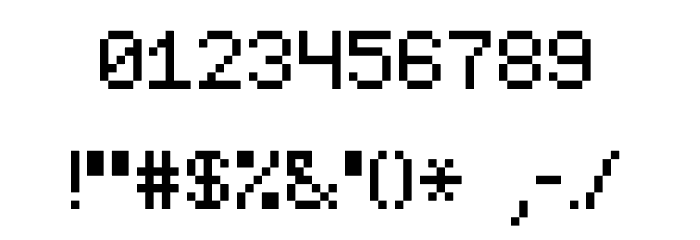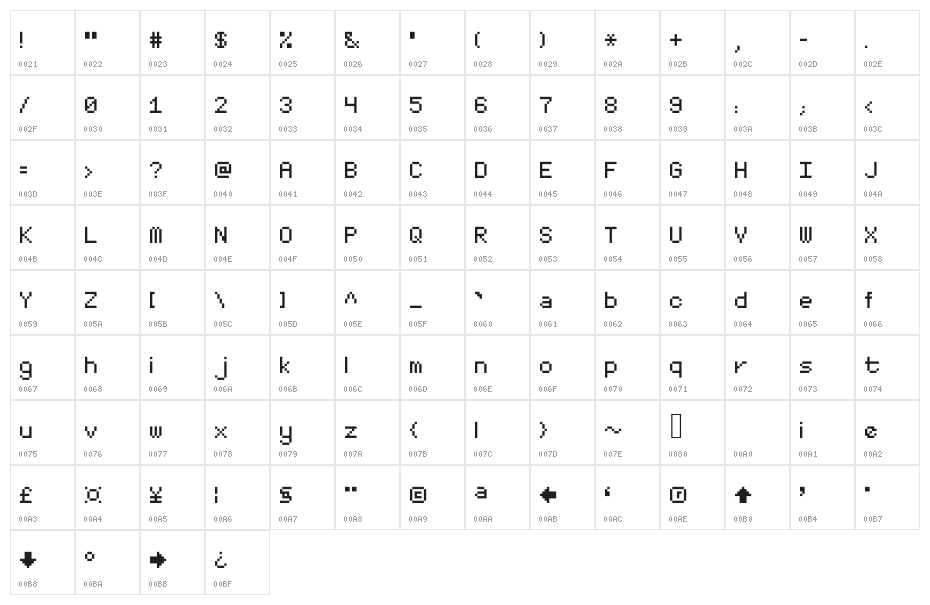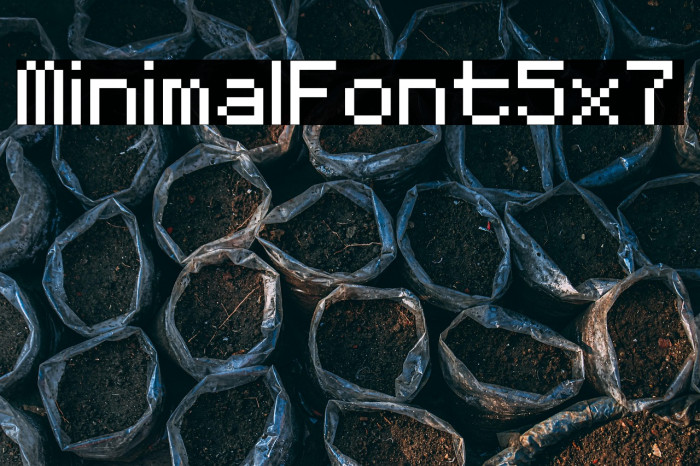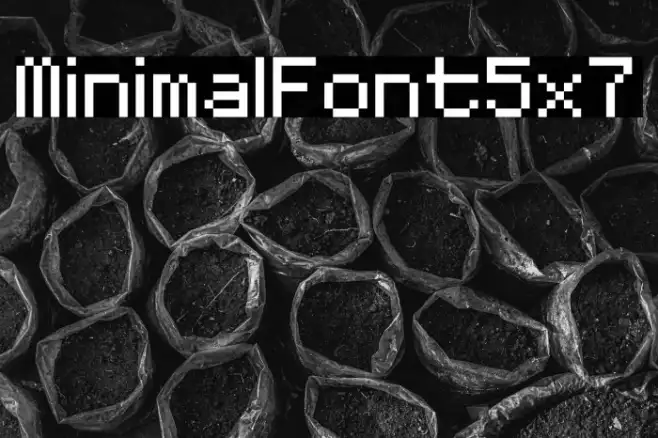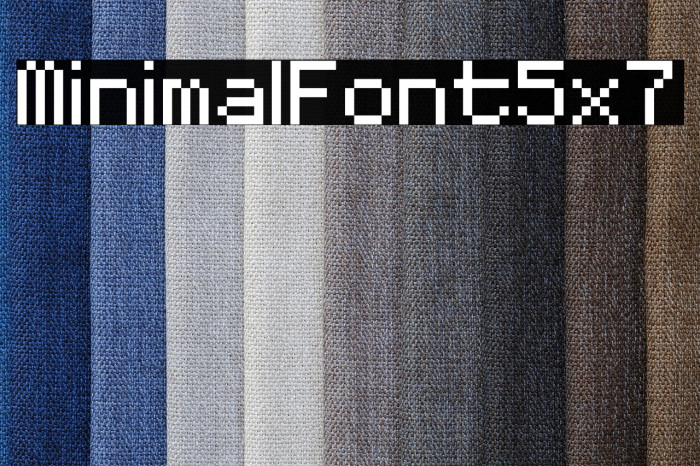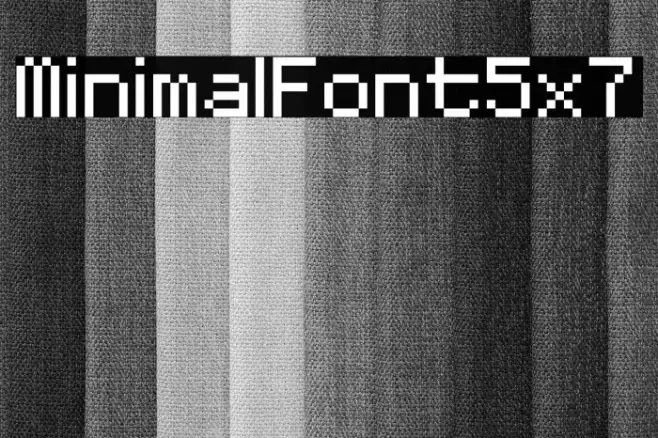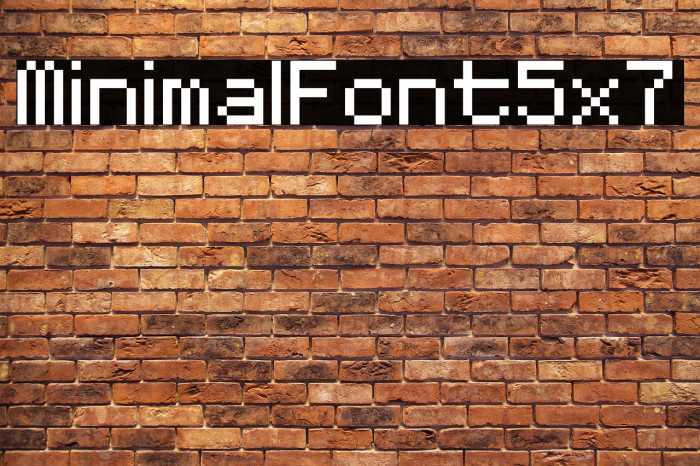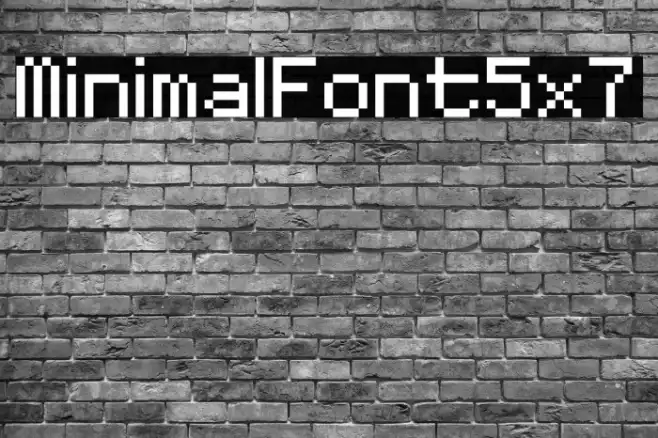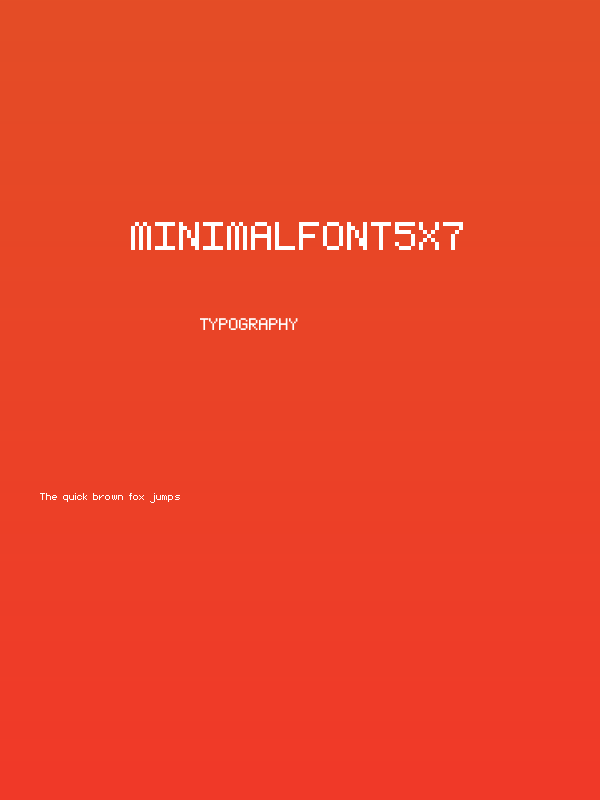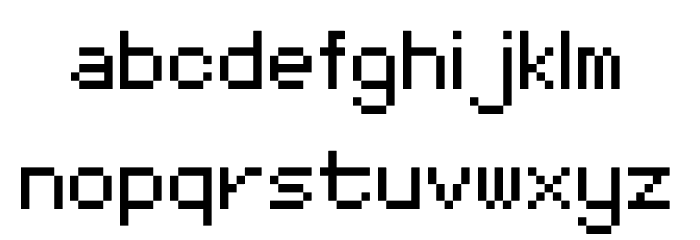
MinimalFont5x7 Font
MinimalFont5x7 Description
This font features a pixelated, grid-like design reminiscent of early digital displays and retro video games. Each character is constructed with a uniform grid pattern, giving it a distinctly blocky and geometric appearance. The uppercase and lowercase letters maintain a consistent height, contributing to a monospaced feel, although the actual spacing may vary slightly. The numerals and special characters follow the same pixelated style, ensuring a cohesive look across all glyphs. This font's simplicity and clarity make it ideal for digital interfaces or projects seeking a nostalgic, tech-inspired aesthetic.
Overall StyleRetro, Digital
Use CaseDigital displays, Retro games, Tech-themed designs
Proposed ProjectsIdeal for retro video games, digital displays, tech-themed designs, and nostalgic branding.